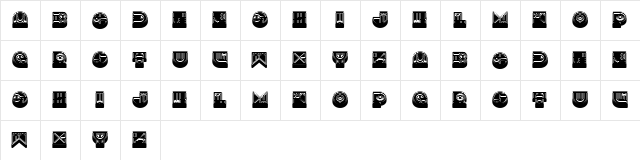
Mucho Regular
Design Context for Mucho Typeface
Mucho is a composed and adaptable typeface that performs quietly and consistently across a wide range of design contexts.